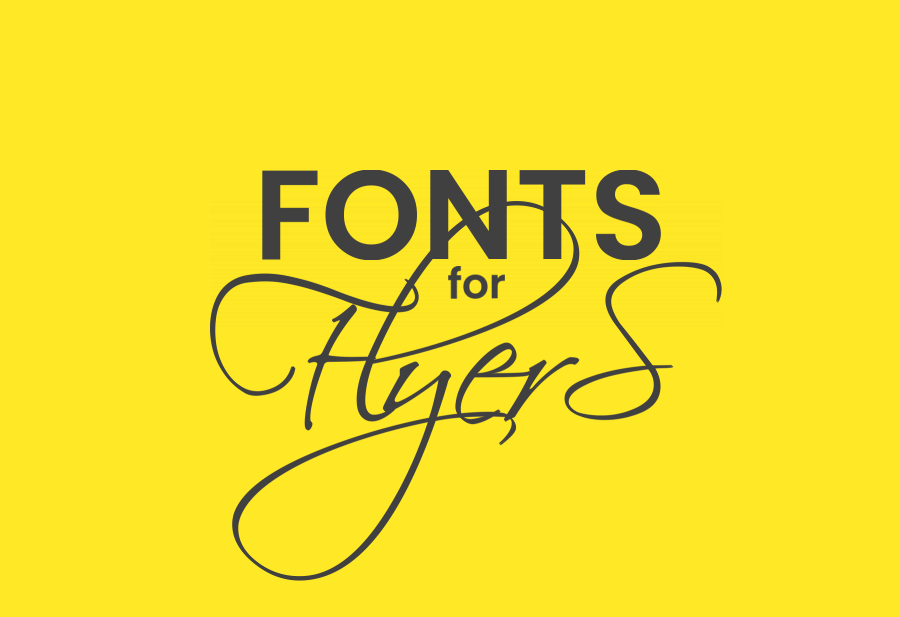
What Is A Good Font For Flyers . Clean sans serifs are the best font for advertising flyers as well as corporate brochures because they give a clean, strong appearance and are easy to read. The best font for flyers will depend on your focus. However, most modern flyer design follows the same rule: If you’ve used any google drive apps, like docs or slides, you’ve probably noticed you can use thousands of free. The best fonts for advertising flyers always depend on the target aesthetic. What are the best fonts for flyers you can find on google fonts? The best fonts for business brochures and flyers combine classic styling with modern features. This collection of the best fonts for flyers can help you find a unique typeface for. The right font can turn a simple flyer into a compelling piece of art, capturing attention and conveying your message.
If you’ve used any google drive apps, like docs or slides, you’ve probably noticed you can use thousands of free. The best fonts for advertising flyers always depend on the target aesthetic. The right font can turn a simple flyer into a compelling piece of art, capturing attention and conveying your message. What are the best fonts for flyers you can find on google fonts? The best fonts for business brochures and flyers combine classic styling with modern features. Clean sans serifs are the best font for advertising flyers as well as corporate brochures because they give a clean, strong appearance and are easy to read. This collection of the best fonts for flyers can help you find a unique typeface for. However, most modern flyer design follows the same rule: The best font for flyers will depend on your focus.
What Is A Good Font For Flyers However, most modern flyer design follows the same rule: The best fonts for advertising flyers always depend on the target aesthetic. Clean sans serifs are the best font for advertising flyers as well as corporate brochures because they give a clean, strong appearance and are easy to read. What are the best fonts for flyers you can find on google fonts? If you’ve used any google drive apps, like docs or slides, you’ve probably noticed you can use thousands of free. The best font for flyers will depend on your focus. However, most modern flyer design follows the same rule: The right font can turn a simple flyer into a compelling piece of art, capturing attention and conveying your message. This collection of the best fonts for flyers can help you find a unique typeface for. The best fonts for business brochures and flyers combine classic styling with modern features.
30 Bold & Chunky / Fonts for Logos, Flyers, Posters, Brochures What Is A Good Font For Flyers The best fonts for business brochures and flyers combine classic styling with modern features. What are the best fonts for flyers you can find on google fonts? However, most modern flyer design follows the same rule: The best font for flyers will depend on your focus. The best fonts for advertising flyers always depend on the target aesthetic. This collection. What Is A Good Font For Flyers.
27+ Best Fonts for Flyers & Brochures (2024) What Is A Good Font For Flyers This collection of the best fonts for flyers can help you find a unique typeface for. Clean sans serifs are the best font for advertising flyers as well as corporate brochures because they give a clean, strong appearance and are easy to read. The best fonts for advertising flyers always depend on the target aesthetic. However, most modern flyer design. What Is A Good Font For Flyers.
10+ Best Fonts for Brochures in 2021 Free and Premium Fonts What Is A Good Font For Flyers This collection of the best fonts for flyers can help you find a unique typeface for. The right font can turn a simple flyer into a compelling piece of art, capturing attention and conveying your message. However, most modern flyer design follows the same rule: The best fonts for advertising flyers always depend on the target aesthetic. If you’ve used. What Is A Good Font For Flyers.
35+ Best Fonts for Flyers 2021 Design Shack What Is A Good Font For Flyers What are the best fonts for flyers you can find on google fonts? The best font for flyers will depend on your focus. The best fonts for advertising flyers always depend on the target aesthetic. However, most modern flyer design follows the same rule: Clean sans serifs are the best font for advertising flyers as well as corporate brochures because. What Is A Good Font For Flyers.
Best Fonts for Business Brochures and Flyers That Stand Out How to What Is A Good Font For Flyers Clean sans serifs are the best font for advertising flyers as well as corporate brochures because they give a clean, strong appearance and are easy to read. The best fonts for business brochures and flyers combine classic styling with modern features. The best font for flyers will depend on your focus. The right font can turn a simple flyer into. What Is A Good Font For Flyers.
40+ Best Fonts for Flyers 2022 Design Shack What Is A Good Font For Flyers What are the best fonts for flyers you can find on google fonts? The best fonts for advertising flyers always depend on the target aesthetic. However, most modern flyer design follows the same rule: The best fonts for business brochures and flyers combine classic styling with modern features. The best font for flyers will depend on your focus. This collection. What Is A Good Font For Flyers.
20 Best Fonts For Professional Flyer Design by Creatype Studio What Is A Good Font For Flyers The best fonts for business brochures and flyers combine classic styling with modern features. If you’ve used any google drive apps, like docs or slides, you’ve probably noticed you can use thousands of free. The right font can turn a simple flyer into a compelling piece of art, capturing attention and conveying your message. However, most modern flyer design follows. What Is A Good Font For Flyers.
30+ Best Fonts for Flyers Design Shack What Is A Good Font For Flyers Clean sans serifs are the best font for advertising flyers as well as corporate brochures because they give a clean, strong appearance and are easy to read. If you’ve used any google drive apps, like docs or slides, you’ve probably noticed you can use thousands of free. However, most modern flyer design follows the same rule: What are the best. What Is A Good Font For Flyers.
40+ Best Fonts for Flyers 2022 Design Shack What Is A Good Font For Flyers The best fonts for advertising flyers always depend on the target aesthetic. If you’ve used any google drive apps, like docs or slides, you’ve probably noticed you can use thousands of free. However, most modern flyer design follows the same rule: The best font for flyers will depend on your focus. The right font can turn a simple flyer into. What Is A Good Font For Flyers.